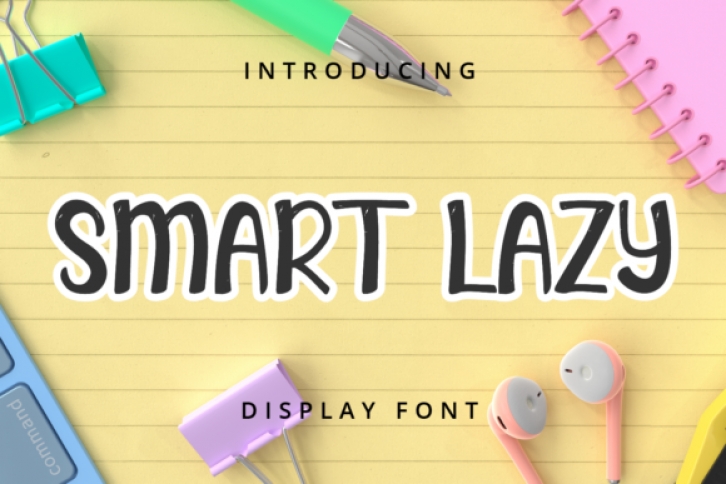
Smart Lazy is a cute and trendy display font. It is suitable for creating any branding, product packaging, invitation, quote, t-shirt, label, poster, logo that you wish to develop.